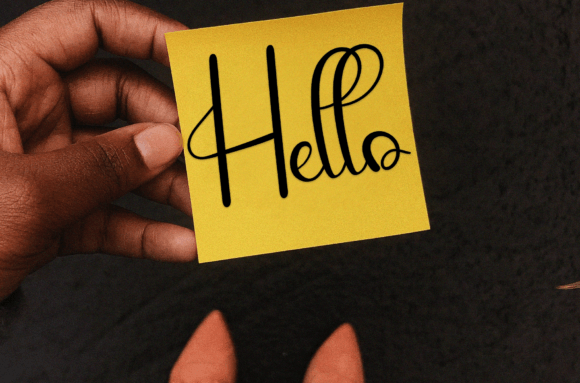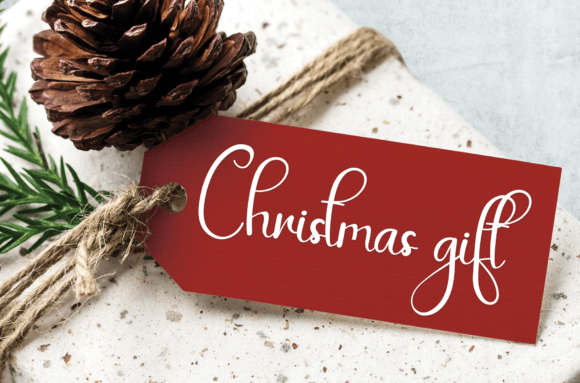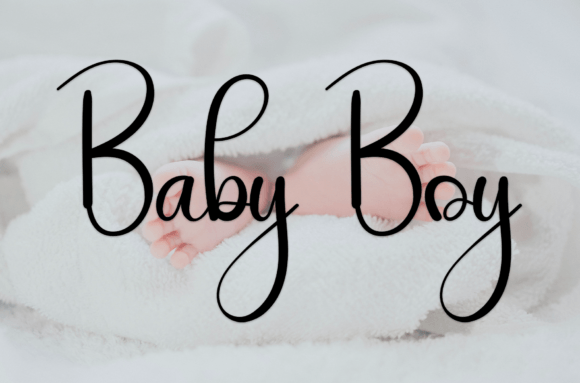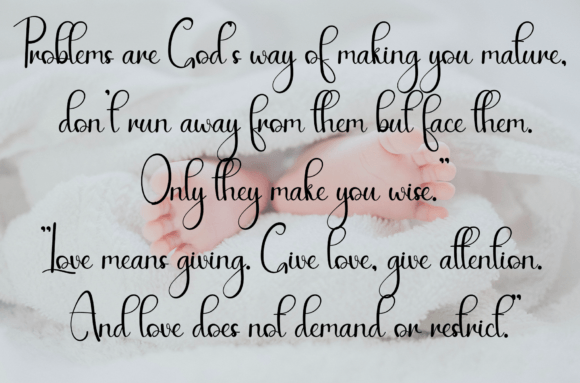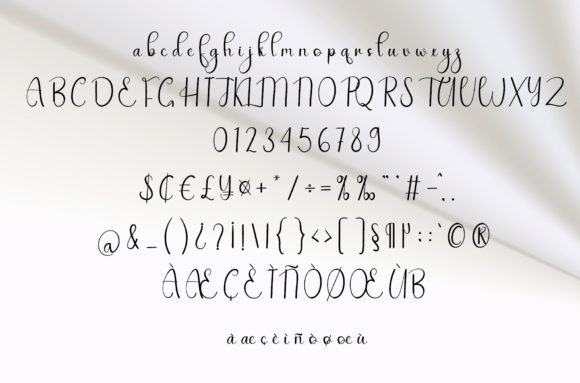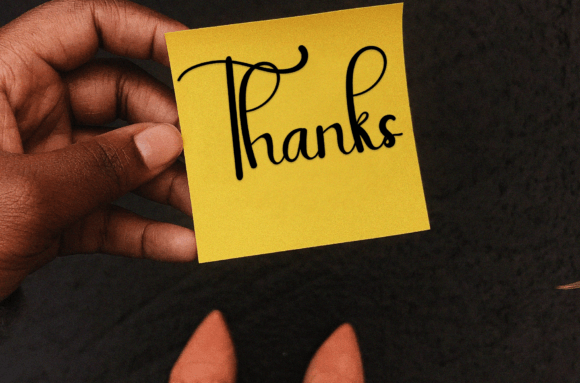
Introducing Farmhouse Font: A Sweet and Friendly Handwritten Delight
Are you a designer or crafter looking for a font that exudes warmth, friendliness, and a touch of rustic charm? Look no further than Farmhouse Font, a beautiful handwritten font that’s perfect for adding a lovely touch to your designs. In this article, we’ll dive into the world of Farmhouse Font, exploring its features, uses, and benefits, as well as provide tips on how to make the most of this gorgeous font.
Farmhouse Font is a sweet and friendly handwritten font that’s designed to bring a sense of fun and relaxation to your designs. With its flowing, cursive lines and playful feel, this font is ideal for creating wedding invitations, cards, and other designs that require a personal touch. Whether you’re a professional designer or a crafty DIY enthusiast, Farmhouse Font is sure to become a favorite in your collection.
- Handwritten style: Farmhouse Font boasts a beautiful, handwritten style that’s perfect for adding a personal touch to your designs.
- Sweet and friendly: This font exudes warmth and friendliness, making it ideal for designs that require a approachable and inviting feel.
- Fun and relaxed: Farmhouse Font has a playful, laid-back vibe that’s perfect for creating designs that are fun and carefree.
- Highly versatile: This font can be used for a wide range of designs, from wedding invitations and cards to branding and packaging.
Uses for Farmhouse Font
So, what can you use Farmhouse Font for? The possibilities are endless! Here are a few ideas to get you started:
- Wedding invitations: Farmhouse Font is perfect for creating beautiful, rustic wedding invitations that set the tone for a special day.
- Cards and stationery: This font is ideal for creating lovely cards and stationery for special occasions, such as birthdays, anniversaries, and holidays.
- Branding and packaging: Farmhouse Font can be used to create a cohesive brand identity for businesses that want to convey a friendly, approachable image.
- DIY projects: This font is perfect for crafty DIY enthusiasts who want to add a personal touch to their projects, such as scrapbooking, journaling, and crafting.
To make the most of Farmhouse Font, here are a few tips to keep in mind:
- Pair with complementary fonts: Farmhouse Font looks great when paired with complementary fonts, such as serif or sans-serif fonts, to create visual interest and contrast.
- Use for headlines and body text: This font is suitable for both headlines and body text, making it a versatile addition to your design toolkit.
- Experiment with colors and textures: Farmhouse Font looks great in a variety of colors and textures, so don’t be afraid to experiment and find the perfect combination for your design.
In conclusion, Farmhouse Font is a beautiful, handwritten font that’s perfect for designers and crafters who want to add a touch of warmth and friendliness to their designs. With its sweet and friendly style, fun and relaxed vibe, and high versatility, this font is sure to become a favorite in your collection. Whether you’re creating wedding invitations, cards, or branding and packaging, Farmhouse Font is the perfect choice for adding a lovely touch to your designs.